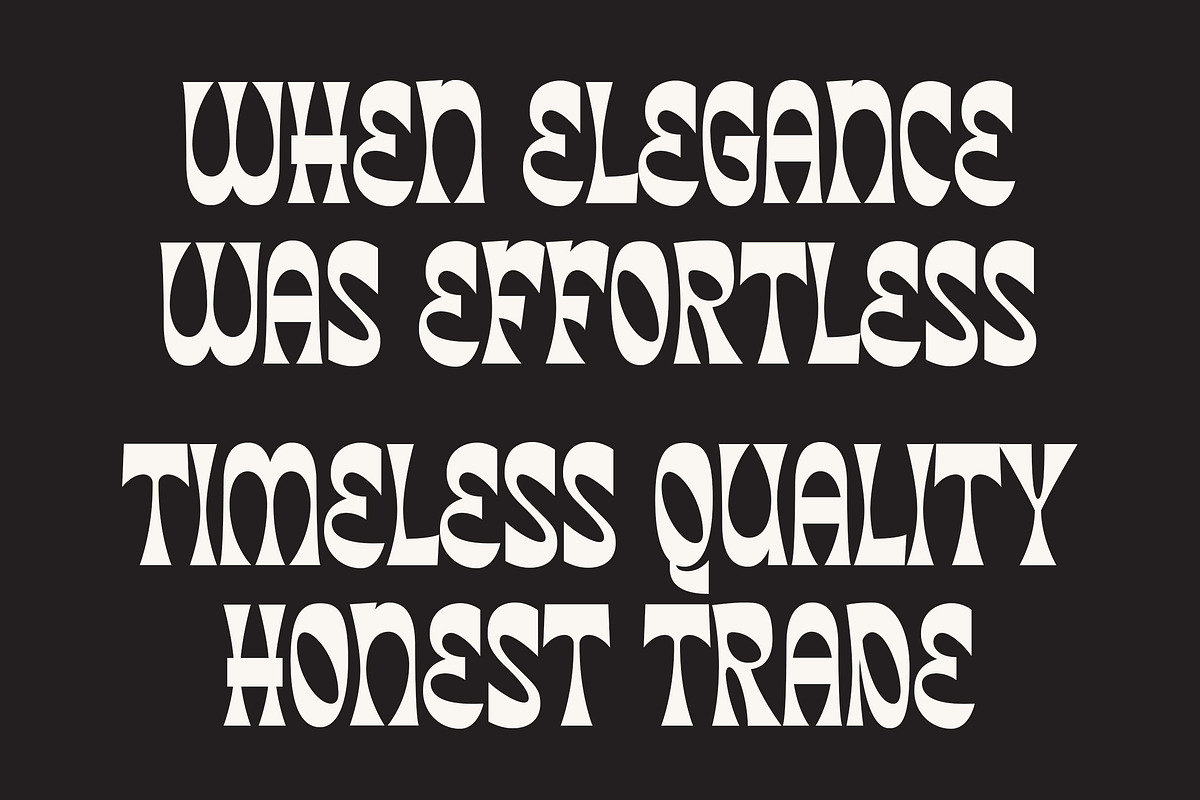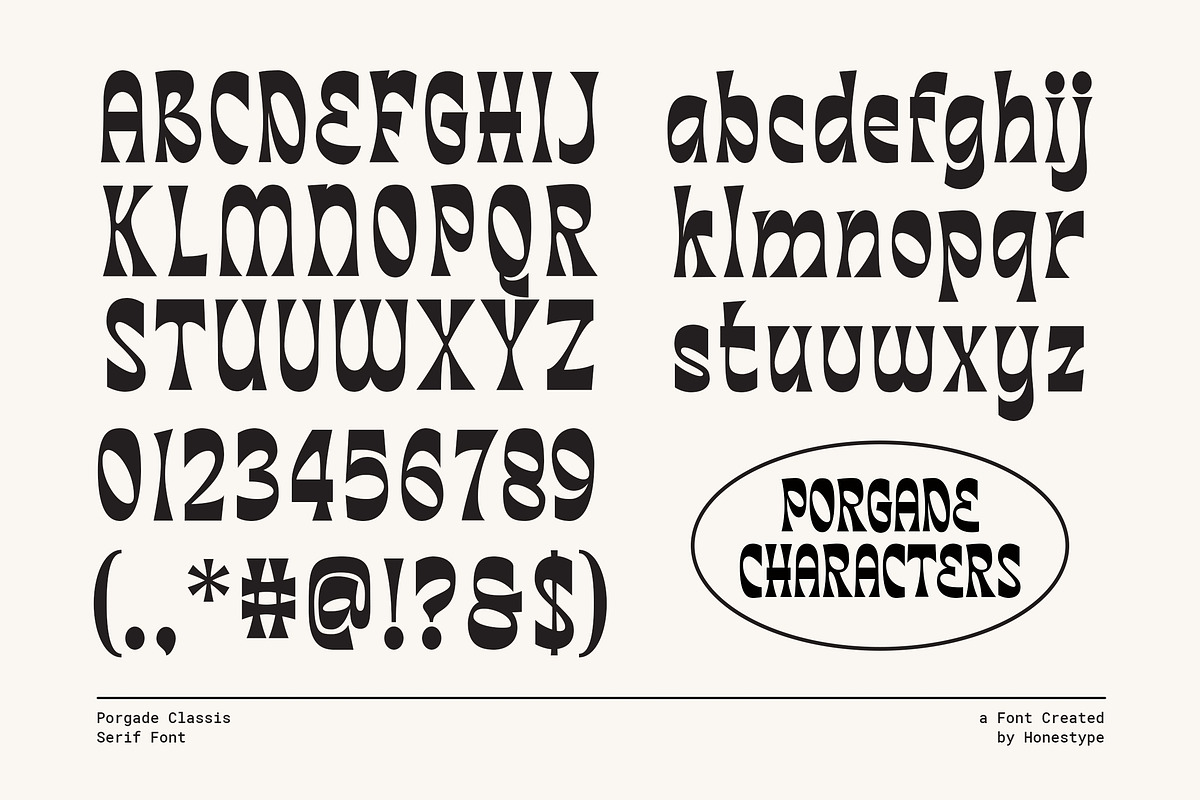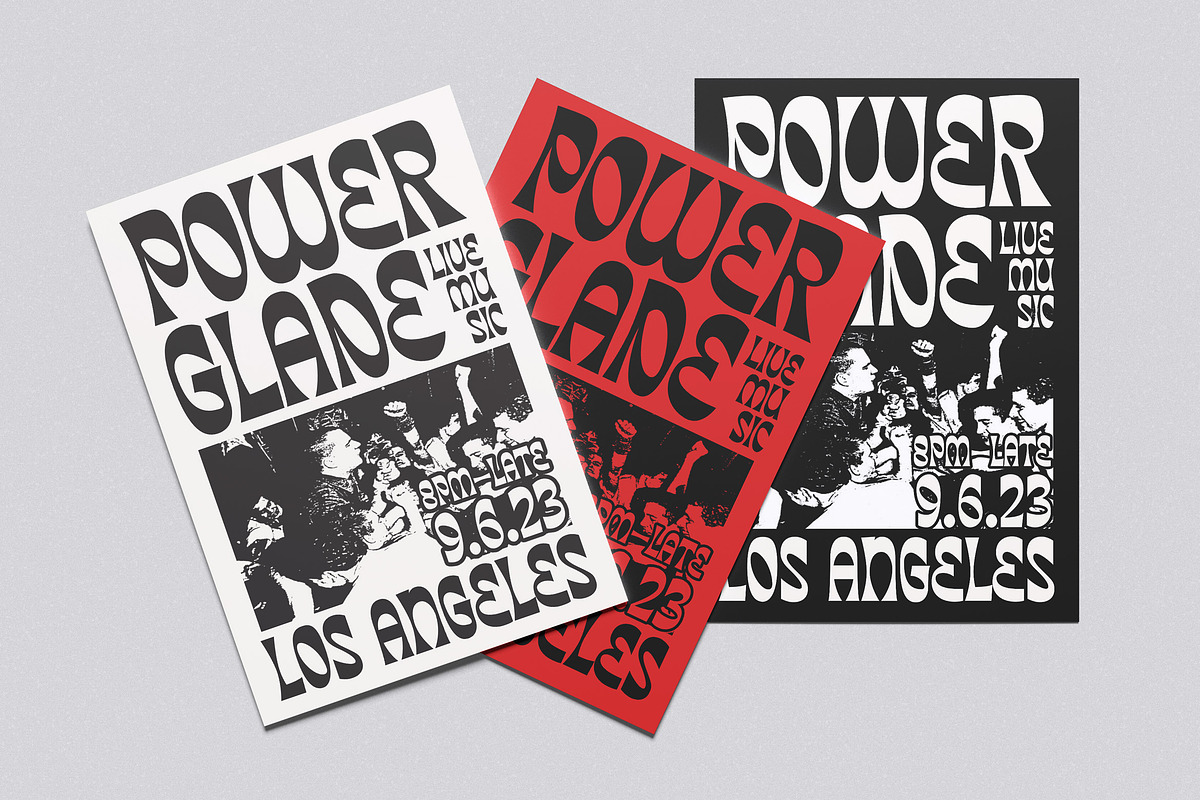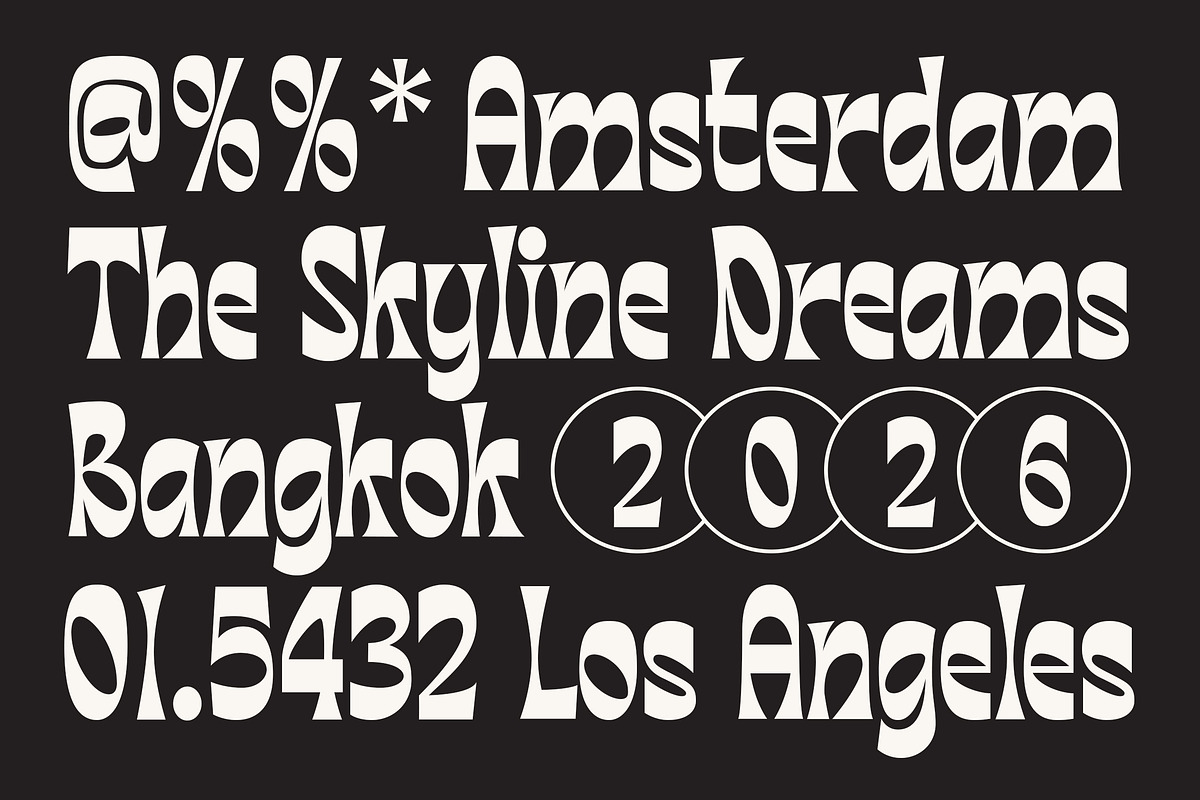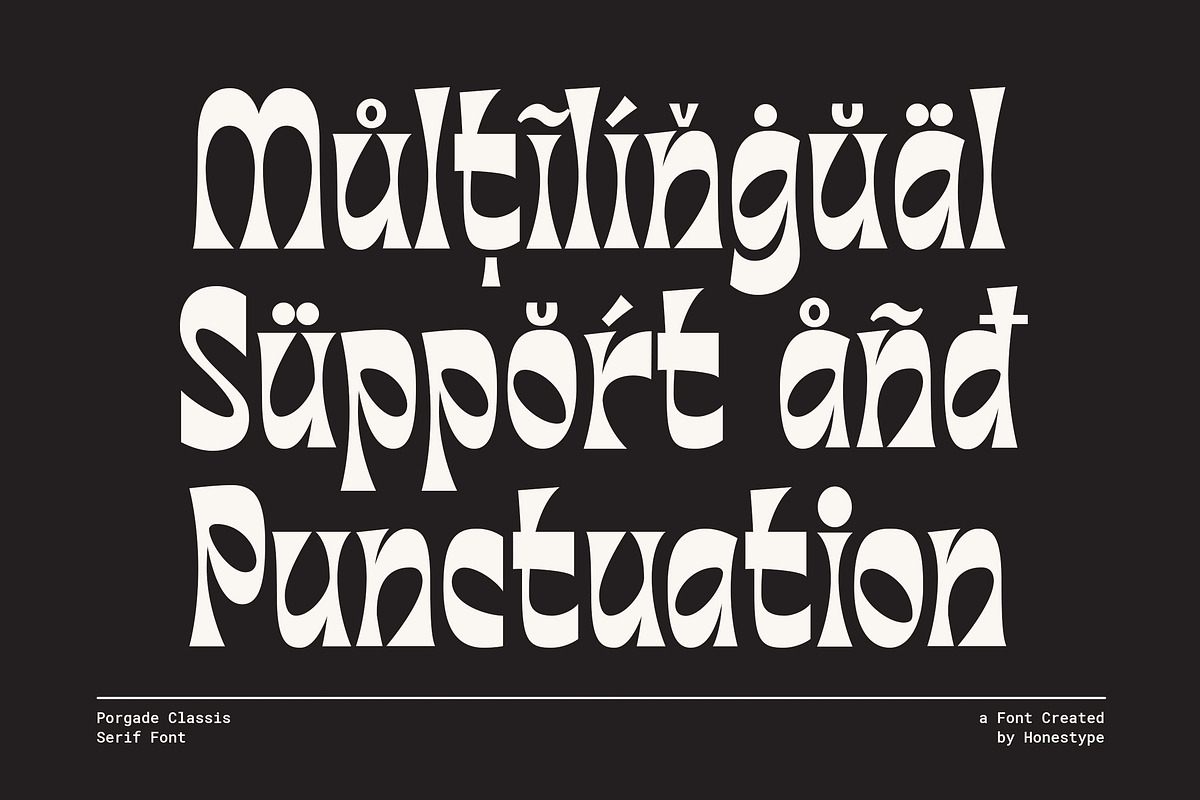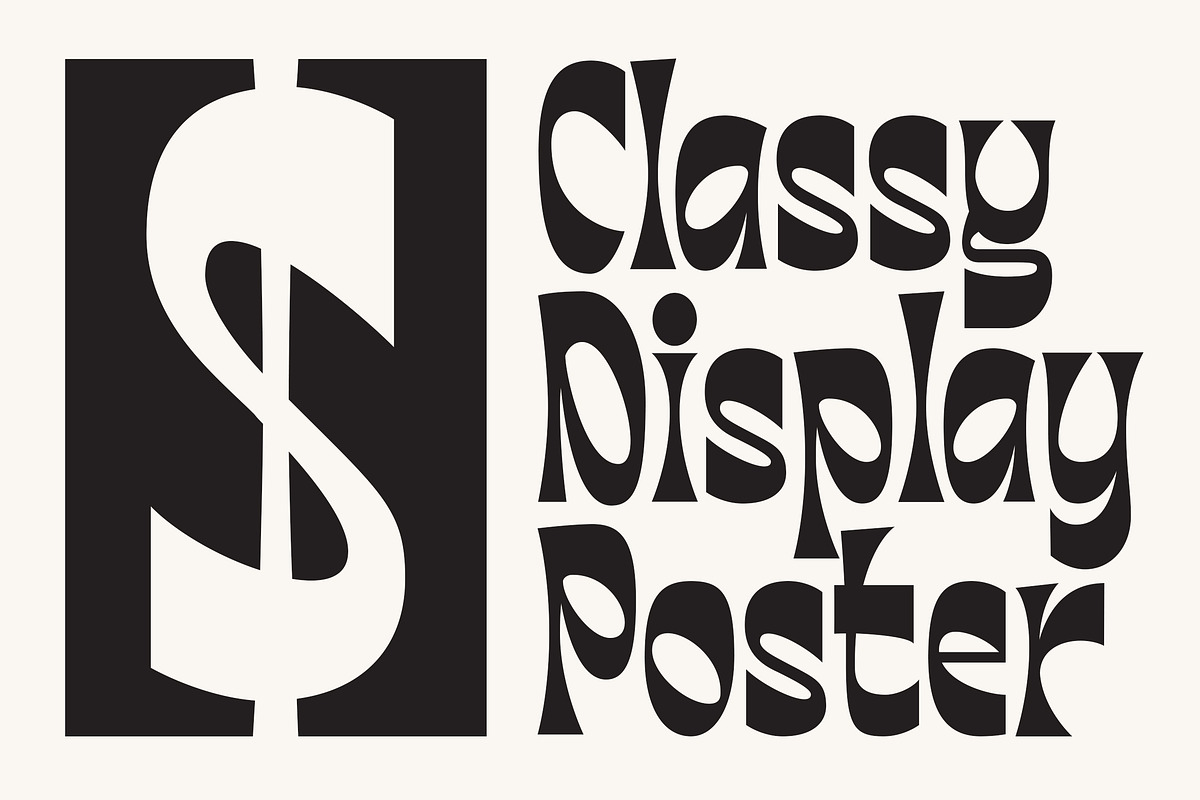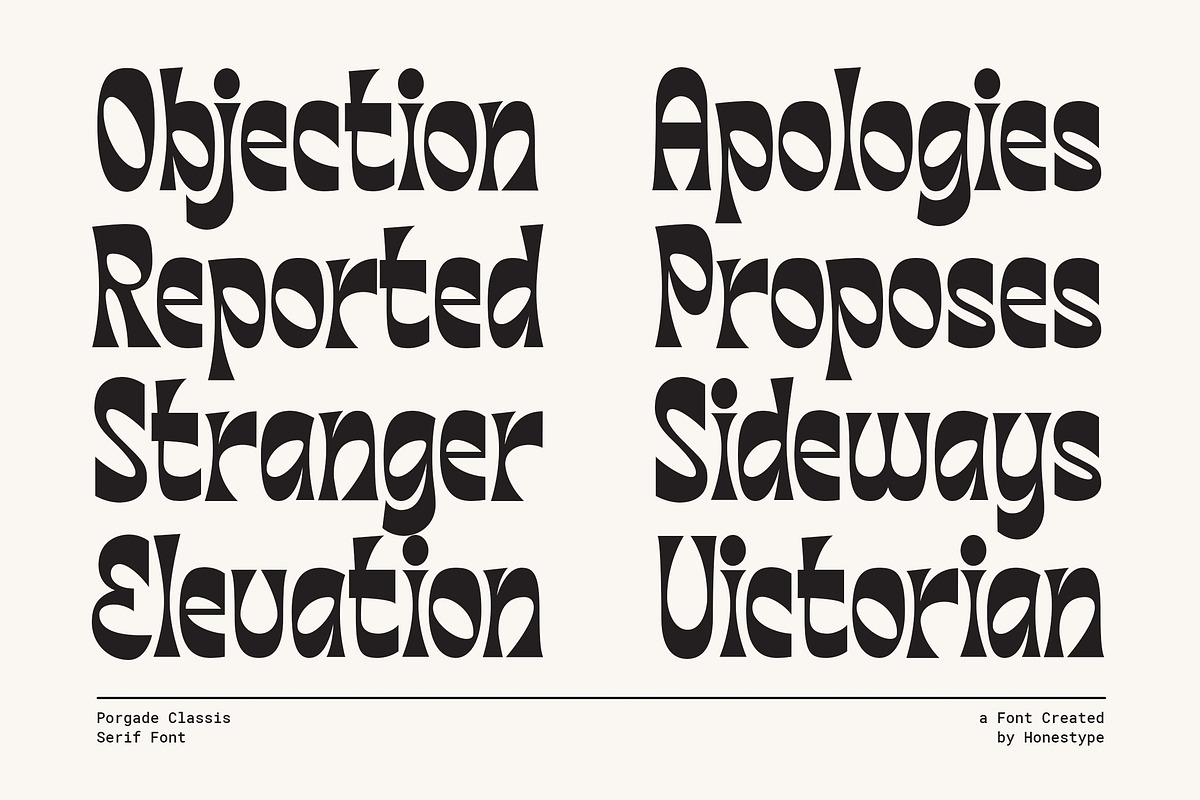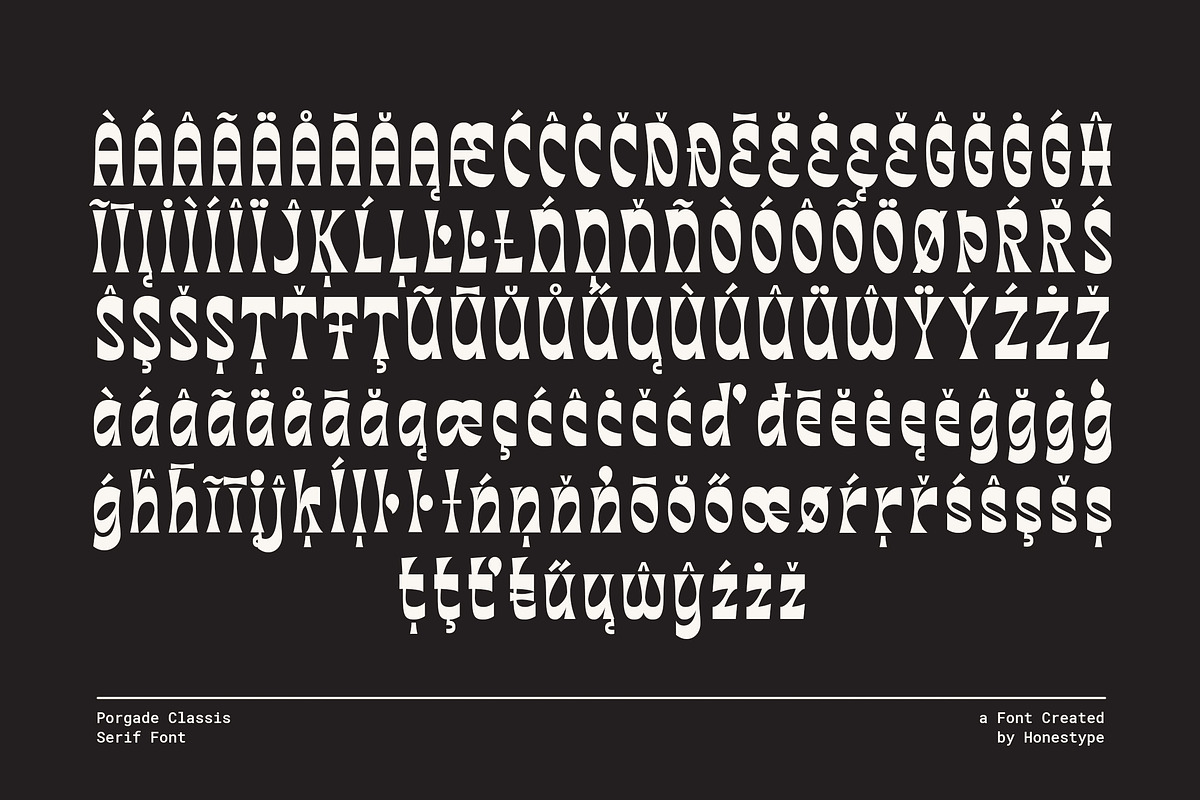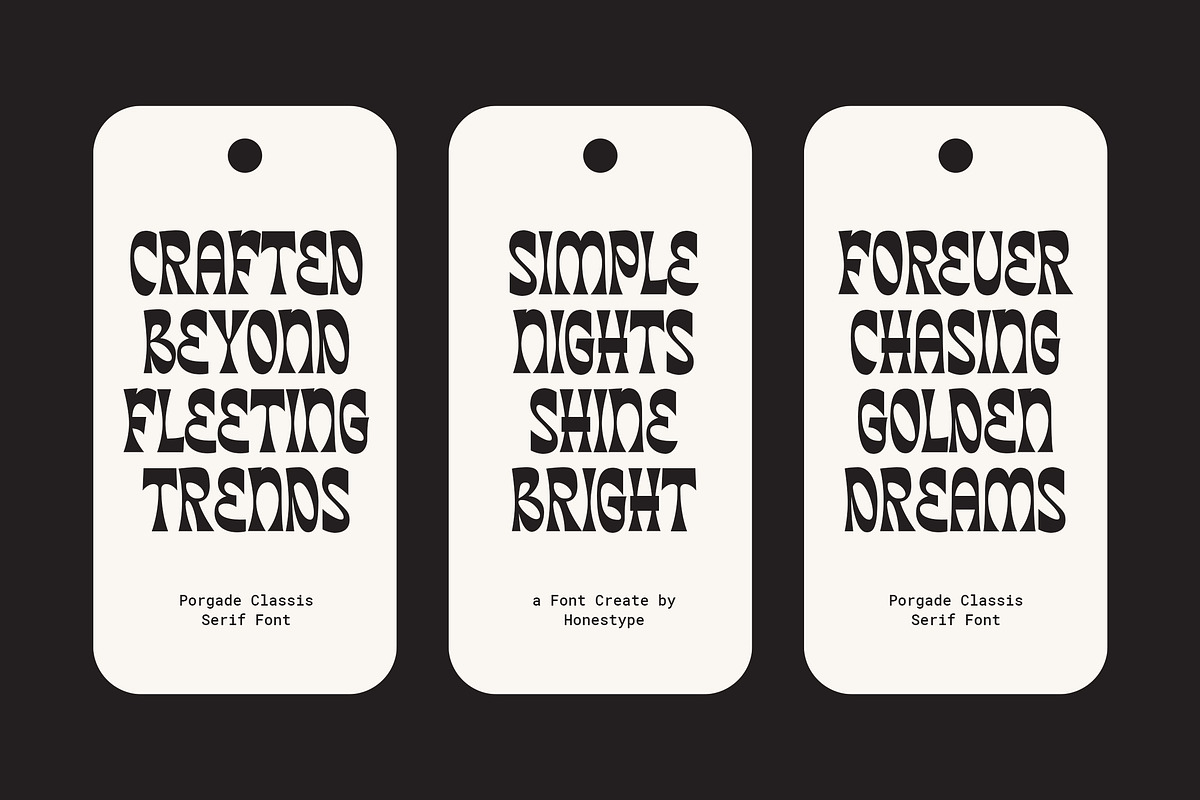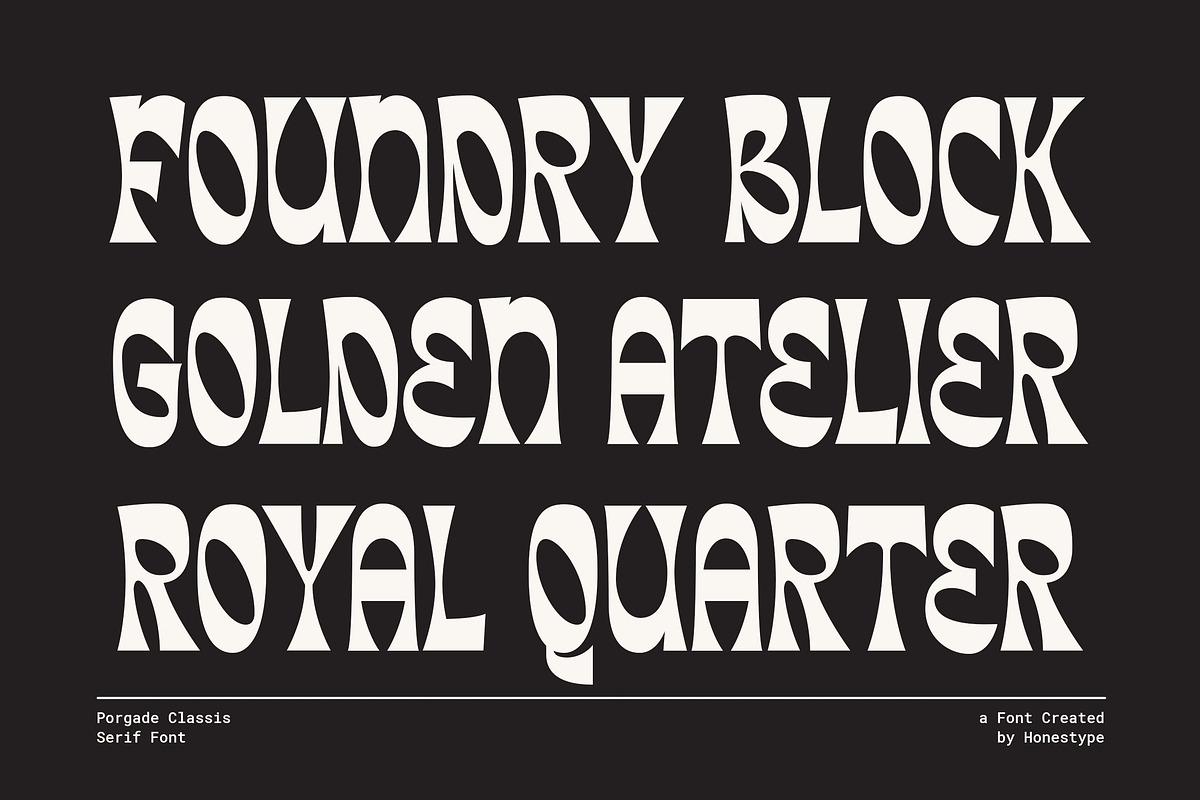
Porgade – Classic Editorial Serif
Porgade – Classic Editorial Serif with a Bold Artistic Soul
Porgade is a distinctive editorial serif font that blends classic sophistication with expressive, unconventional letterforms. Inspired by vintage publishing, heritage branding, and artistic typography from the mid-century era, Porgade delivers a strong visual identity while maintaining elegance and readability.
Its high-contrast shapes, dramatic curves, and unique counters create a memorable presence, making every headline feel refined, stylish, and full of character. Whether used for editorial layouts, luxury branding, packaging, posters, or creative identity projects, Porgade brings a timeless yet contemporary aesthetic that stands out effortlessly.
Designed for creatives who seek typography beyond the ordinary, Porgade offers a perfect balance between classic serif tradition and experimental visual expression.
Editorial Design
Magazine Headlines
Luxury Branding
Fashion Branding
Posters
Advertising
Vintage Branding
Creative Projects